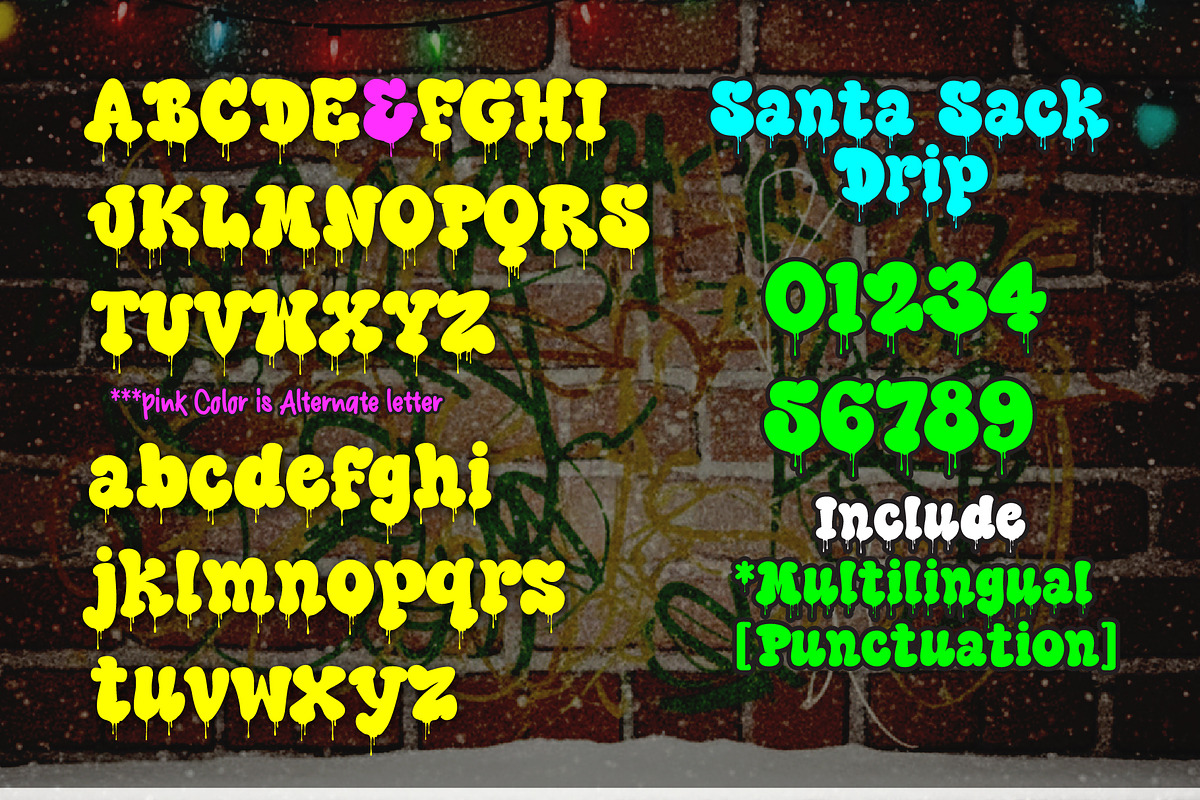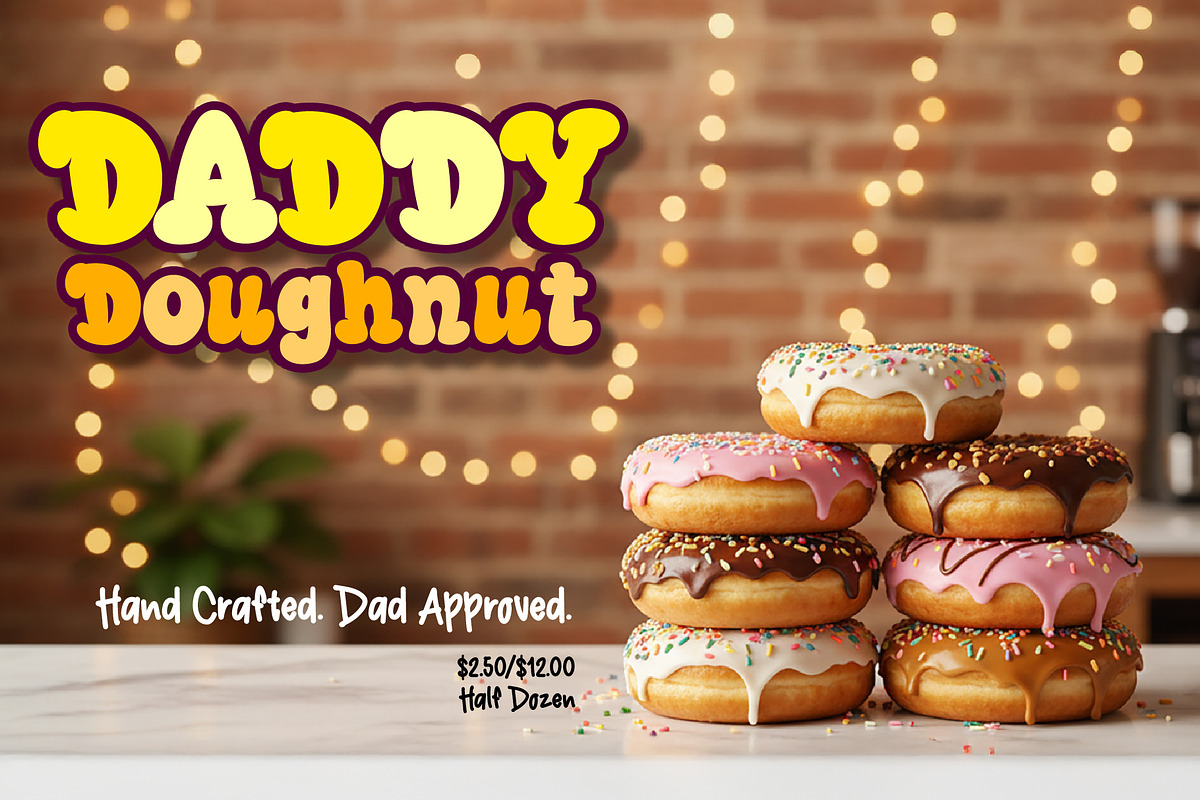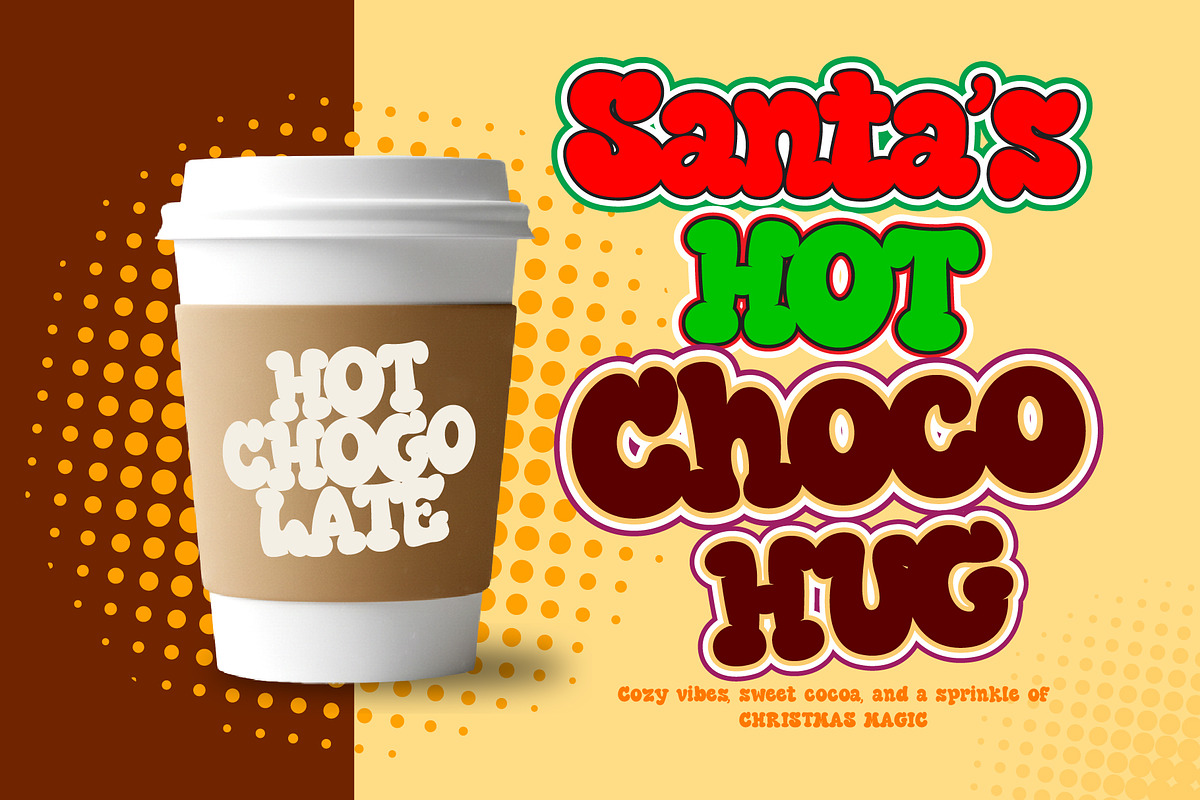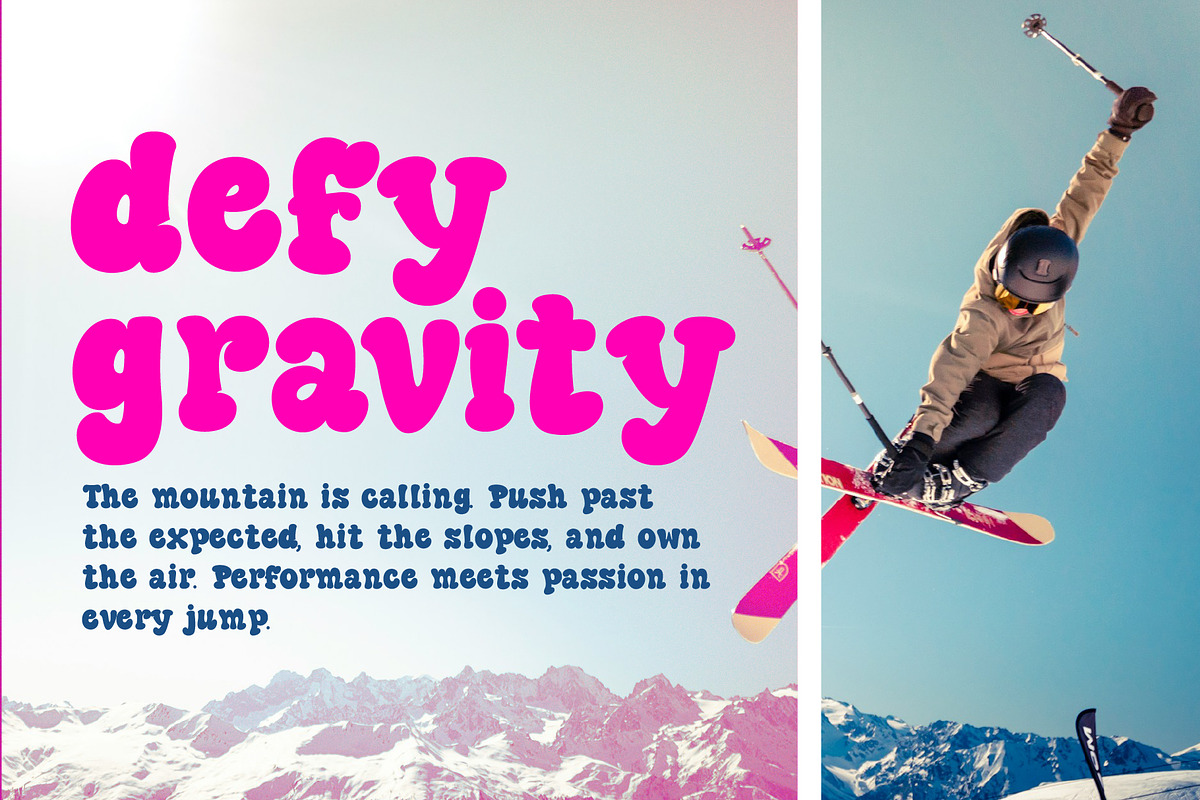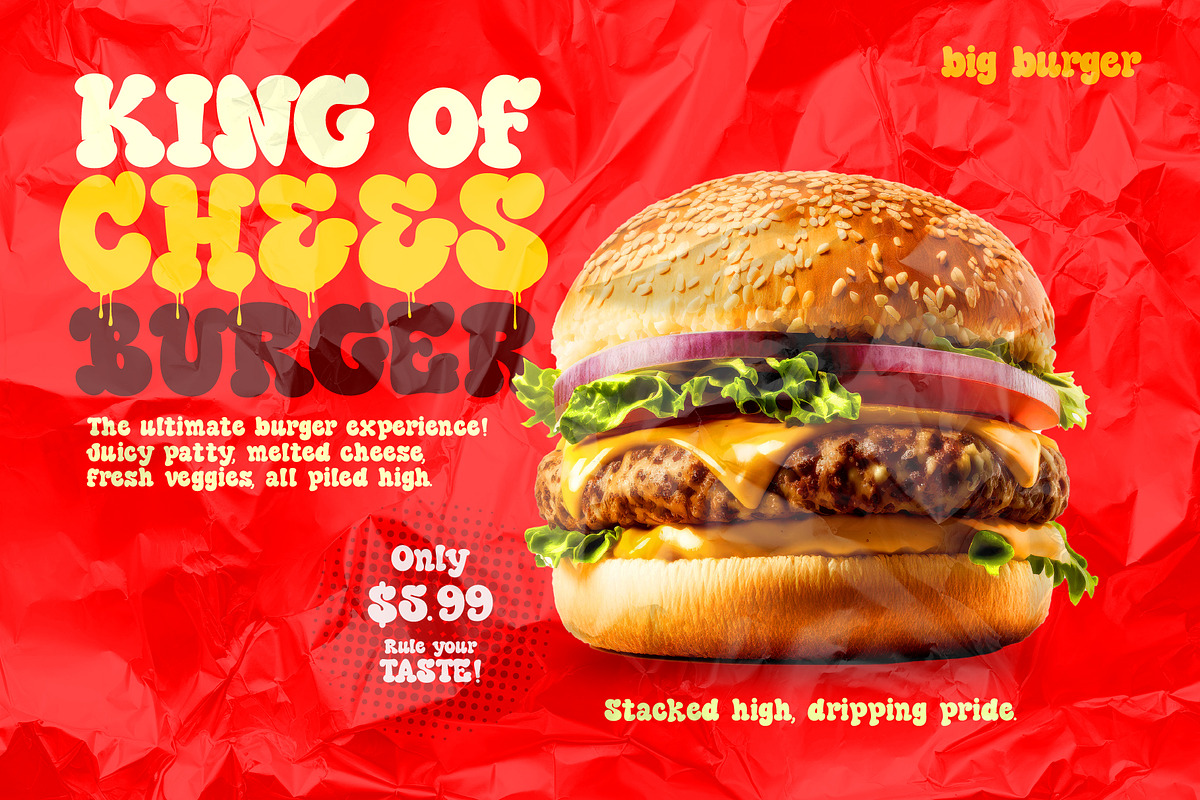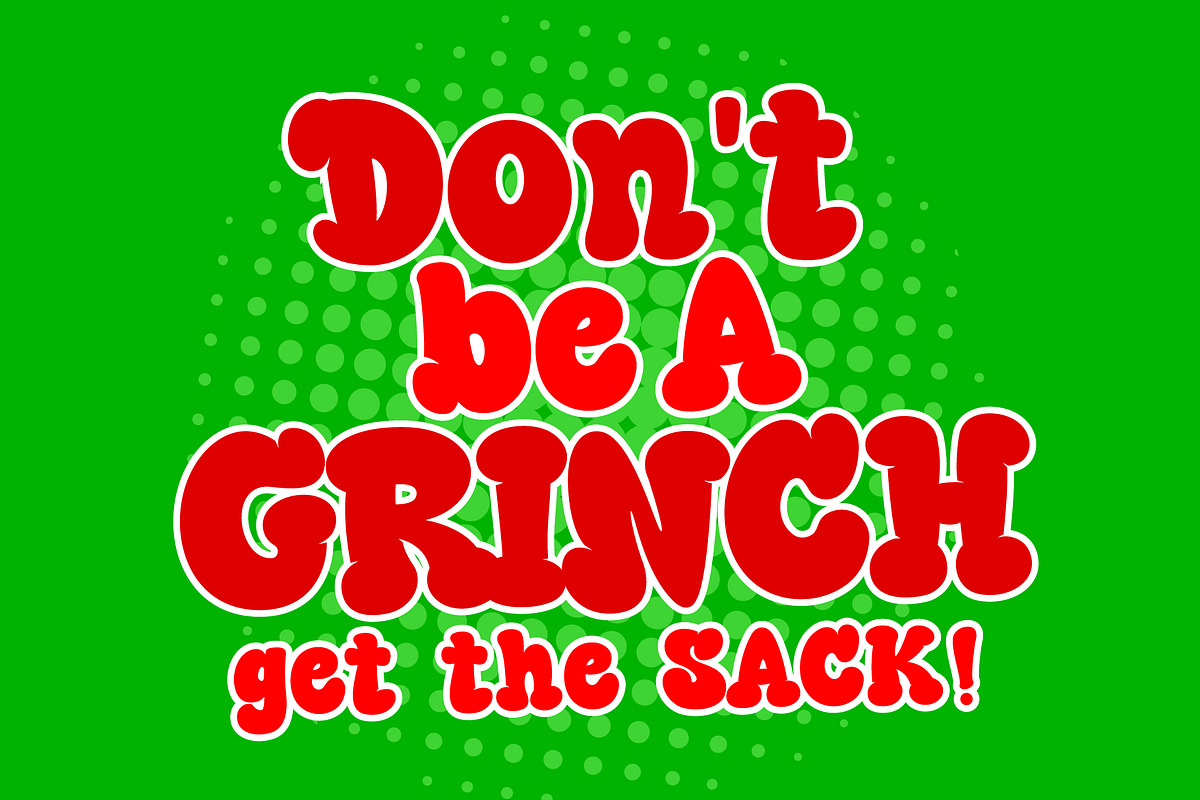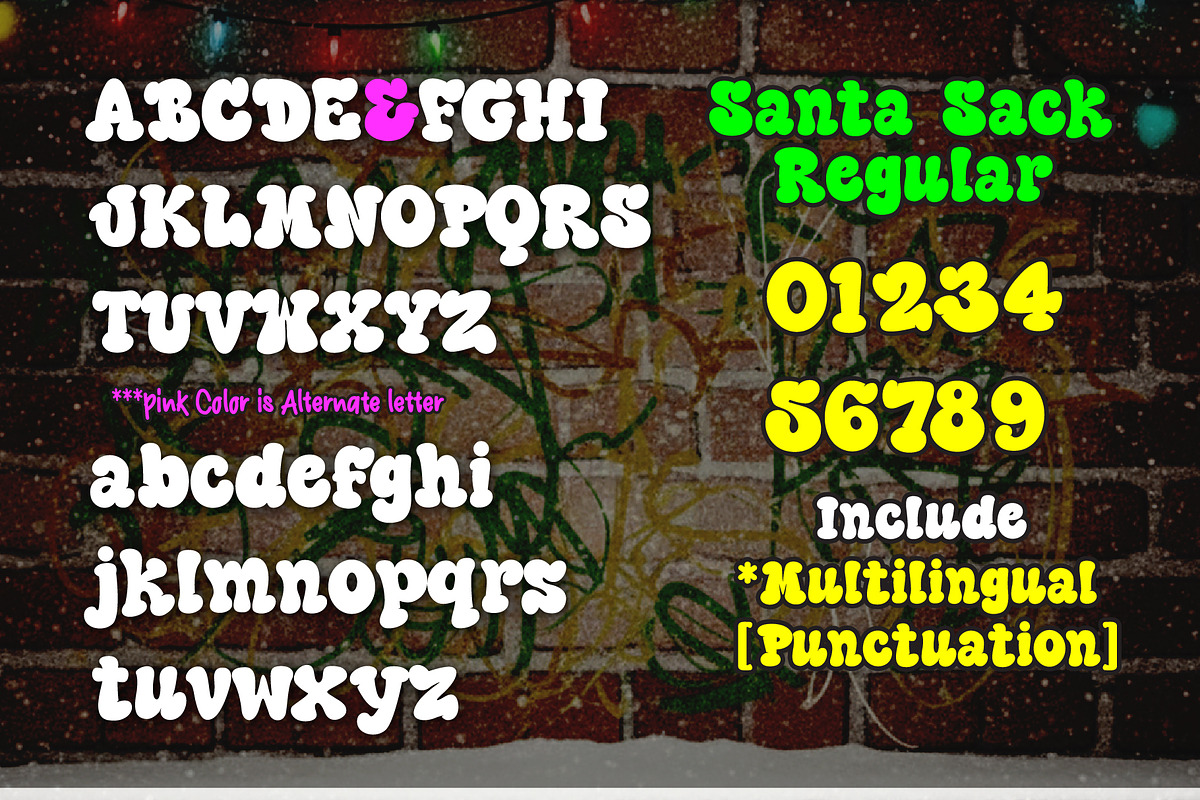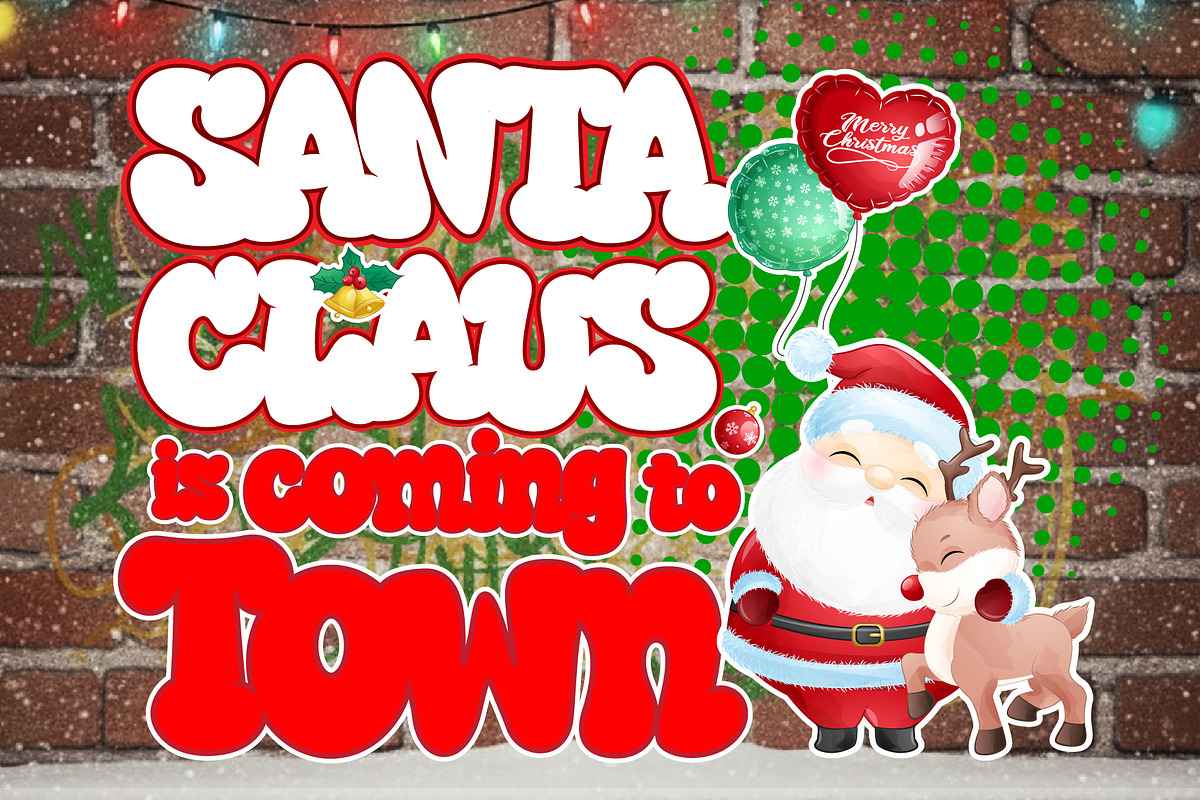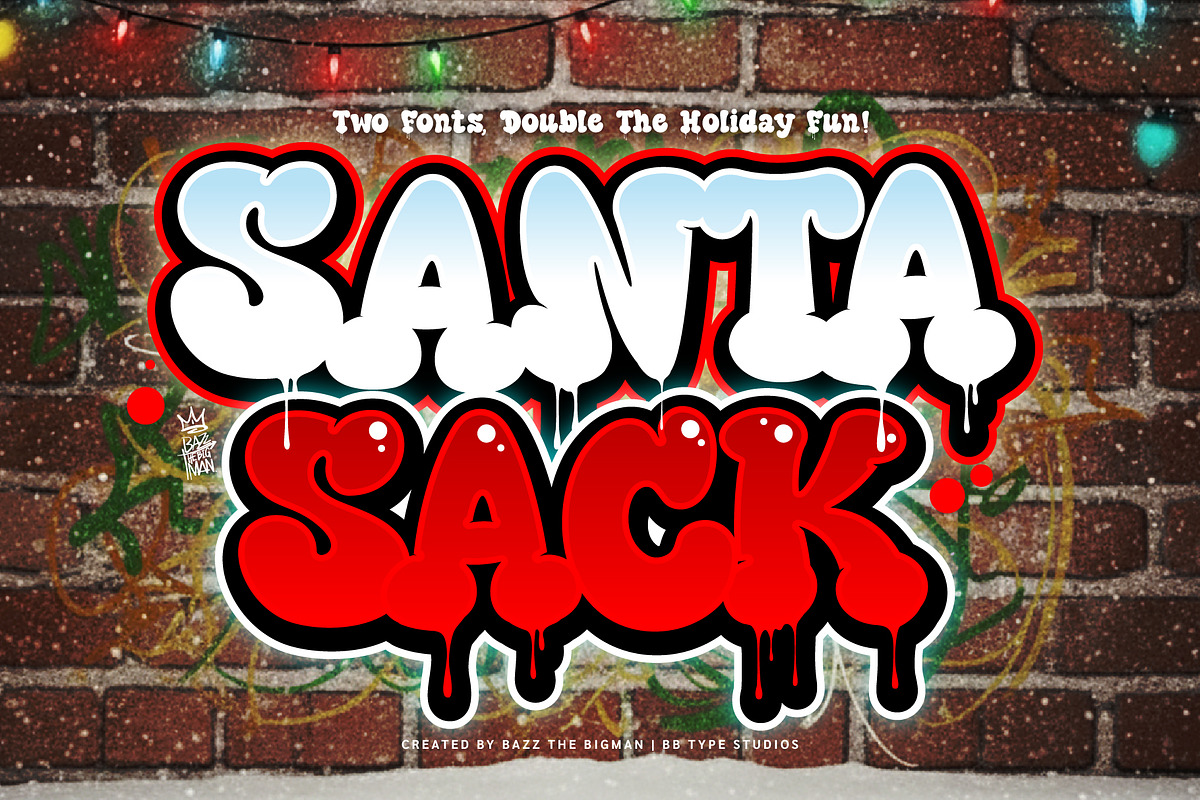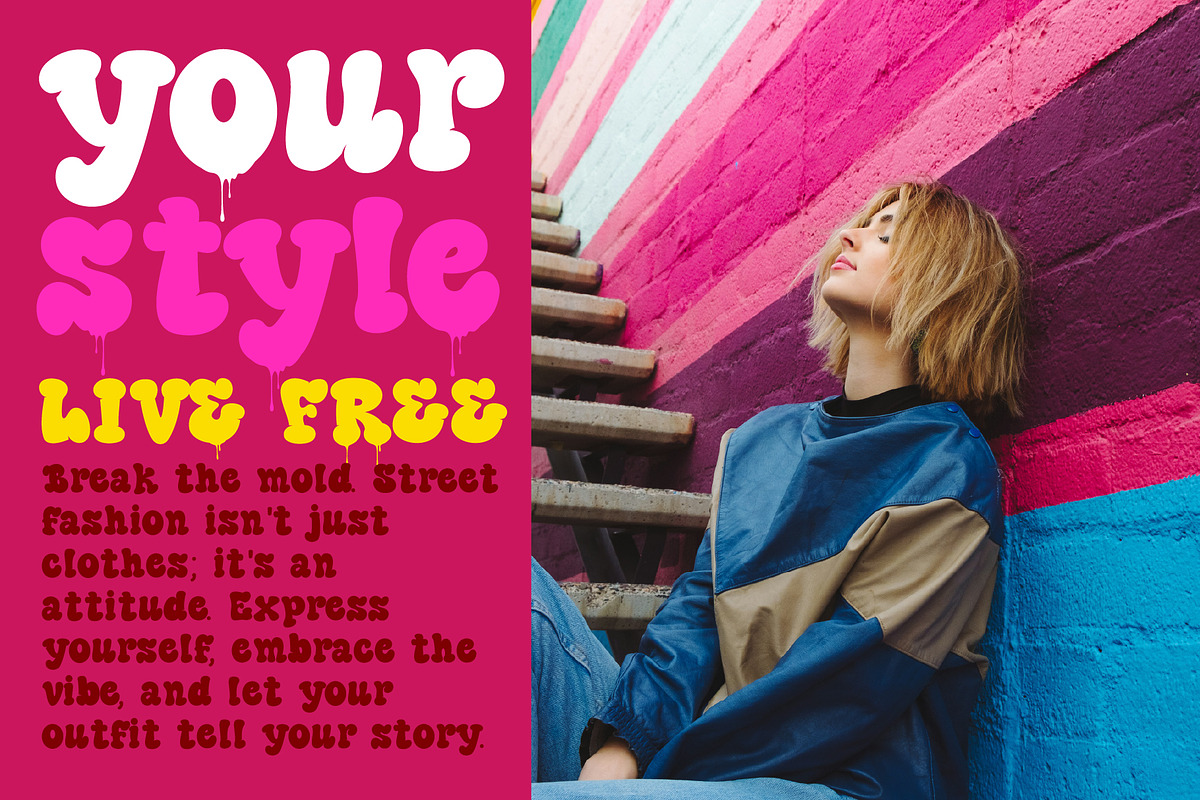
Santa Sack
Discover the magic of holiday spirit through the whimsical Santa Sack, an inviting bubble-style 2 display font. Drawing inspiration from the cozy warmth of winter treats and the sparkling glow of Christmas illuminations, Santa Sack infuses a playful energy and sentimental ambiance into your designs. This adaptable typographic gem ideally complements festive packaging, enriches coffee cup labels, embellishes Christmas greetings, uplifts posters, or even personalizes bakery branding. In essence, Santa Sack is a font that radiates confident, full-bodied, and fluid allure, evoking a pleasantly nostalgic, bygone holiday experience.